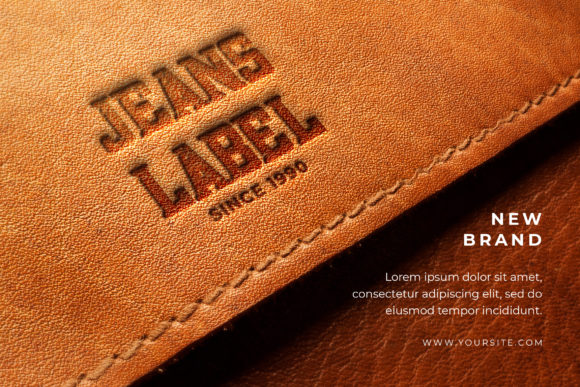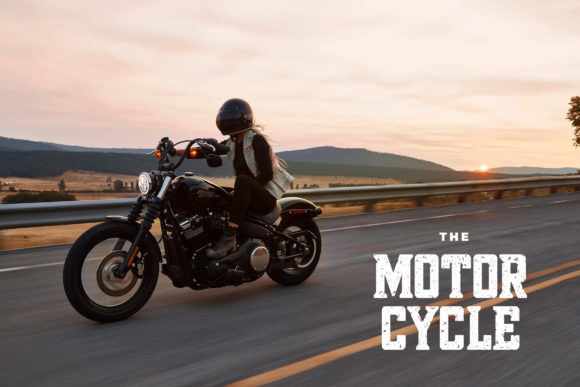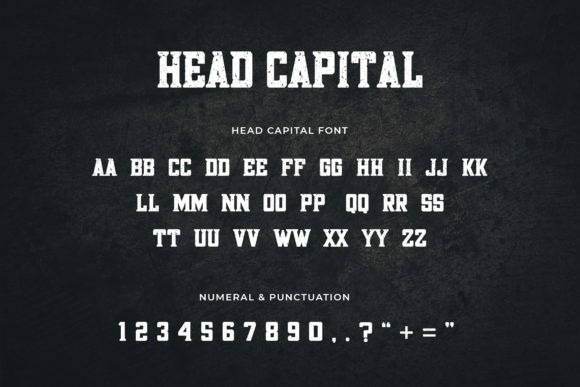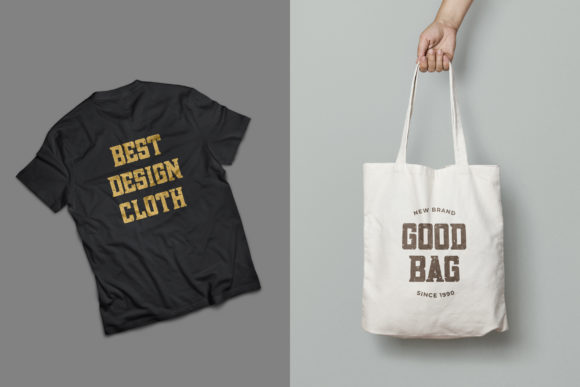
Introducing Head Capital Font: A Timeless Slab Serif Classic
Are you a designer or crafter looking for a font that can add a touch of sophistication and elegance to your creative projects? Look no further than Head Capital Font, a bold and classic slab serif font that’s sure to make your ideas come alive. In this article, we’ll take a closer look at the features and benefits of Head Capital Font, and explore how you can use it to elevate your designs.
The Characteristics of Head Capital Font
Head Capital Font is a slab serif font, characterized by its thick, block-like serifs and bold, confident lines. This classic font style has been a staple of graphic design for centuries, and its timeless appeal makes it a versatile choice for a wide range of projects. The font features clean, geometric lines and a sturdy structure, giving it a solid and dependable feel.
The Benefits of Using Head Capital Font
So why choose Head Capital Font for your next design project? Here are just a few benefits of using this fantastic font:
- Instant Impact: The bold, confident lines of Head Capital Font make it perfect for headlines, titles, and other applications where you want to grab attention.
- Timeless Appeal: The classic design of Head Capital Font ensures that it will never go out of style, making it a great choice for projects that need to stand the test of time.
- Versatility: Head Capital Font can be used in a wide range of contexts, from logos and branding to posters, flyers, and more.
- Ease of Use: With its clean lines and simple structure, Head Capital Font is easy to read and works well in a variety of sizes.
How to Use Head Capital Font in Your Designs
Head Capital Font is a versatile font that can be used in a wide range of design applications. Here are a few ideas to get you started:
- Logos and Branding: Use Head Capital Font to create a bold, memorable logo that makes a lasting impression.
- Posters and Flyers: Add Head Capital Font to your posters and flyers to create eye-catching headlines and titles.
- Packaging Design: Use Head Capital Font to add a touch of sophistication and elegance to your packaging designs.
- Web Design: Head Capital Font works well in web design, particularly for headings and titles.
Tips for Getting the Most Out of Head Capital Font
Here are a few tips for getting the most out of Head Capital Font:
- Experiment with Different Sizes: Head Capital Font works well in a variety of sizes, so don’t be afraid to experiment to find the perfect fit for your design.
- Pair it with Other Fonts: Head Capital Font pairs well with a wide range of fonts, so try combining it with other fonts to create a unique look.
- Use it to Create Contrast: Use Head Capital Font to create contrast in your design, particularly when paired with lighter or more delicate fonts.
Head Capital Font is a bold and classic slab serif font that’s perfect for designers and crafters looking to add a touch of sophistication and elegance to their creative projects. With its timeless appeal, versatility, and ease of use, Head Capital Font is a great choice for a wide range of design applications. Whether you’re creating logos, posters, packaging, or web designs, Head Capital Font is sure to make your ideas come alive.